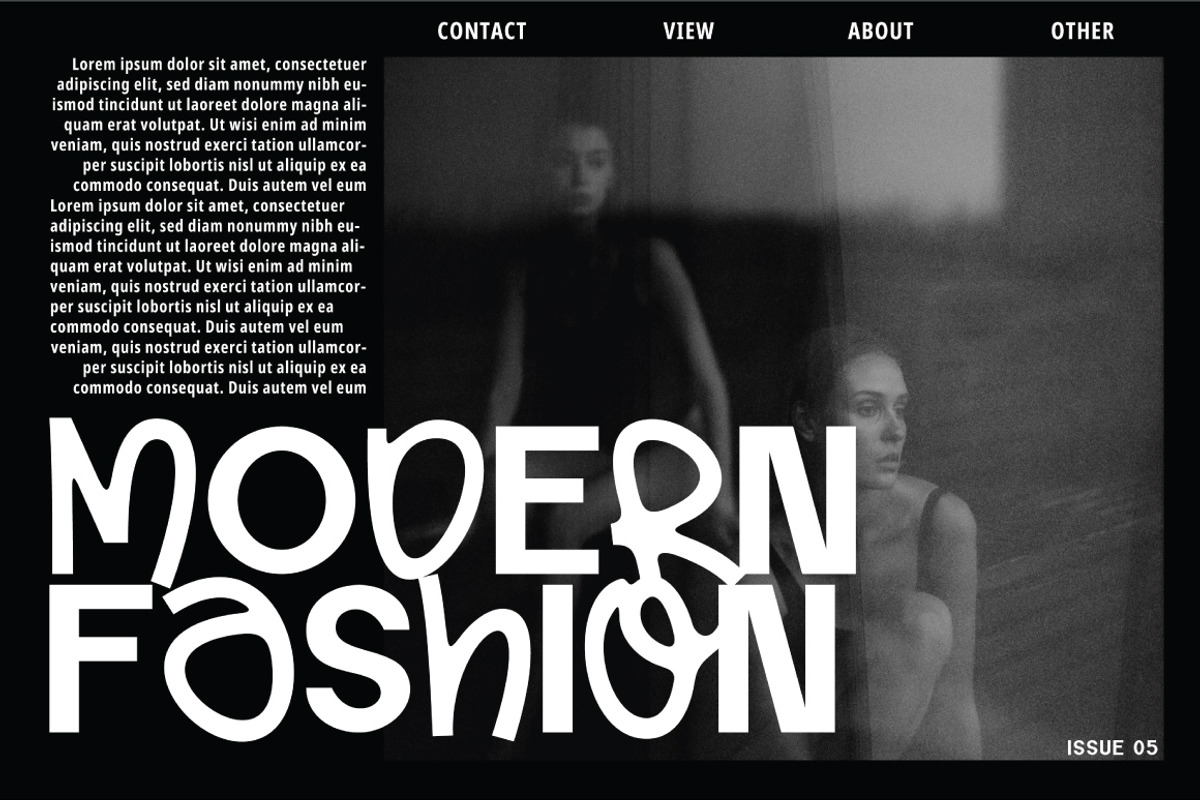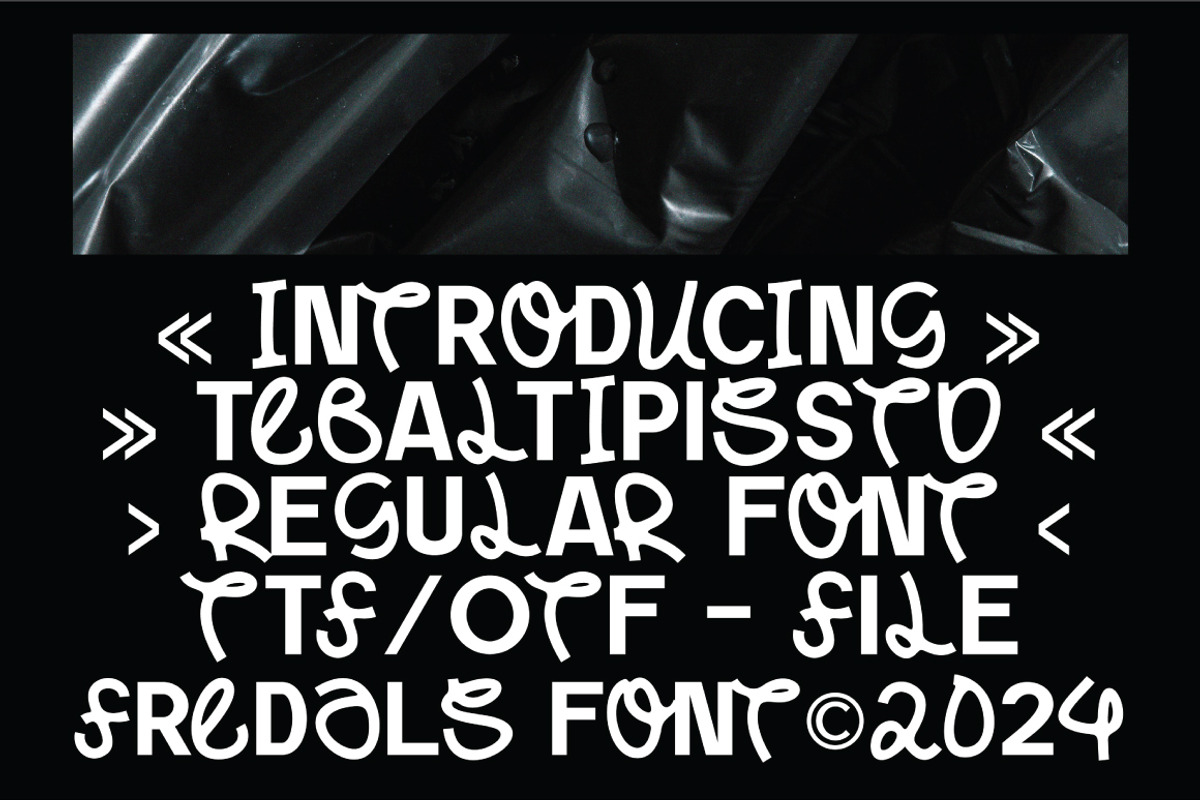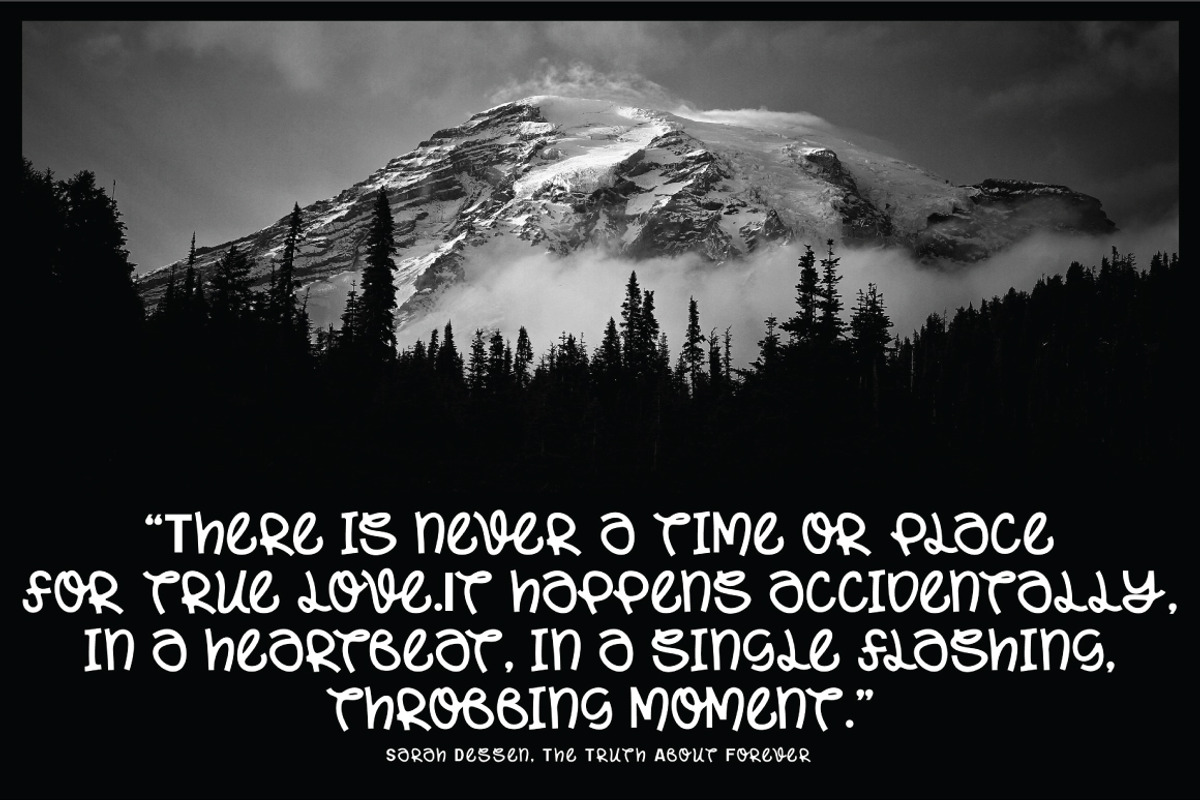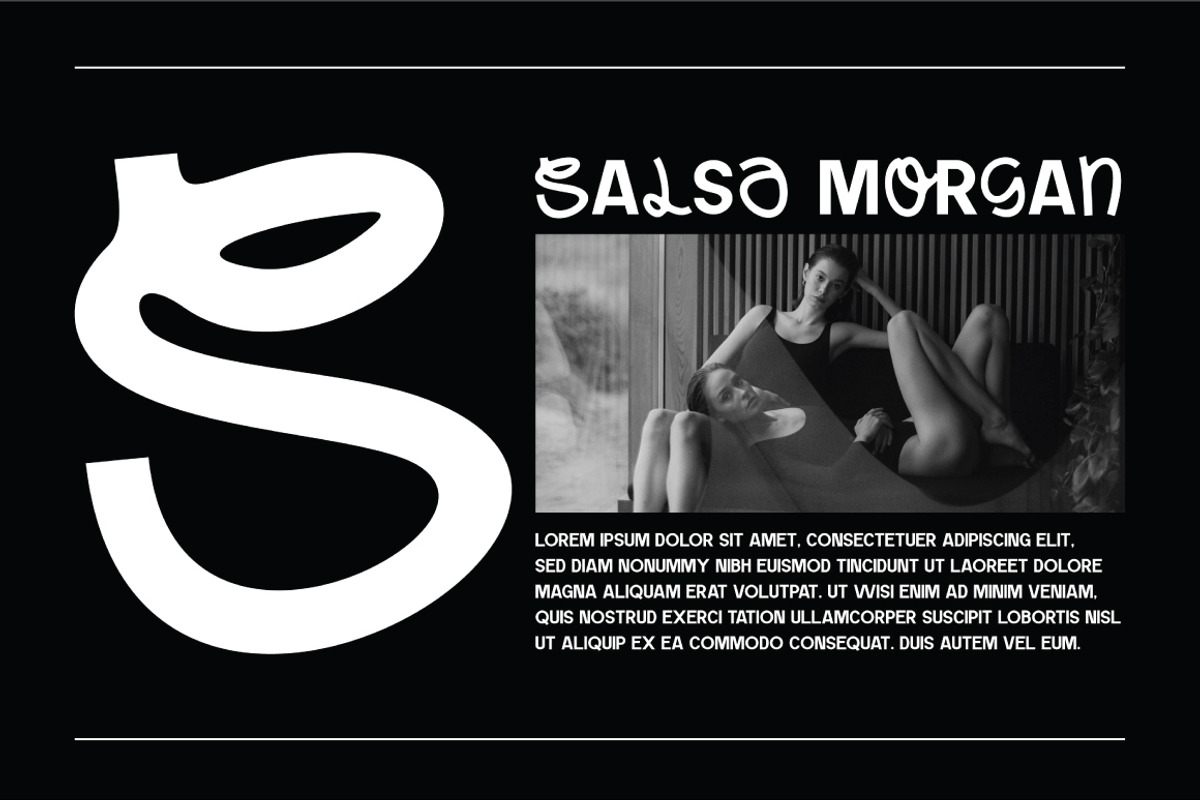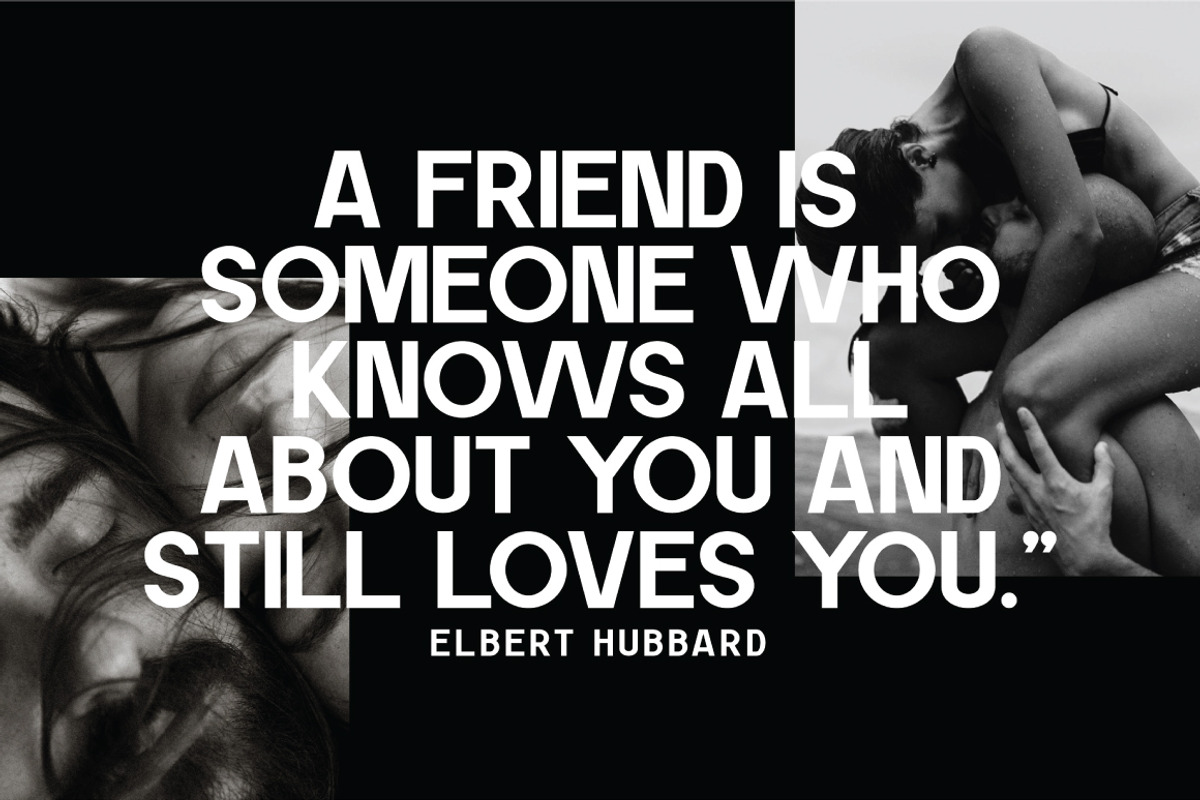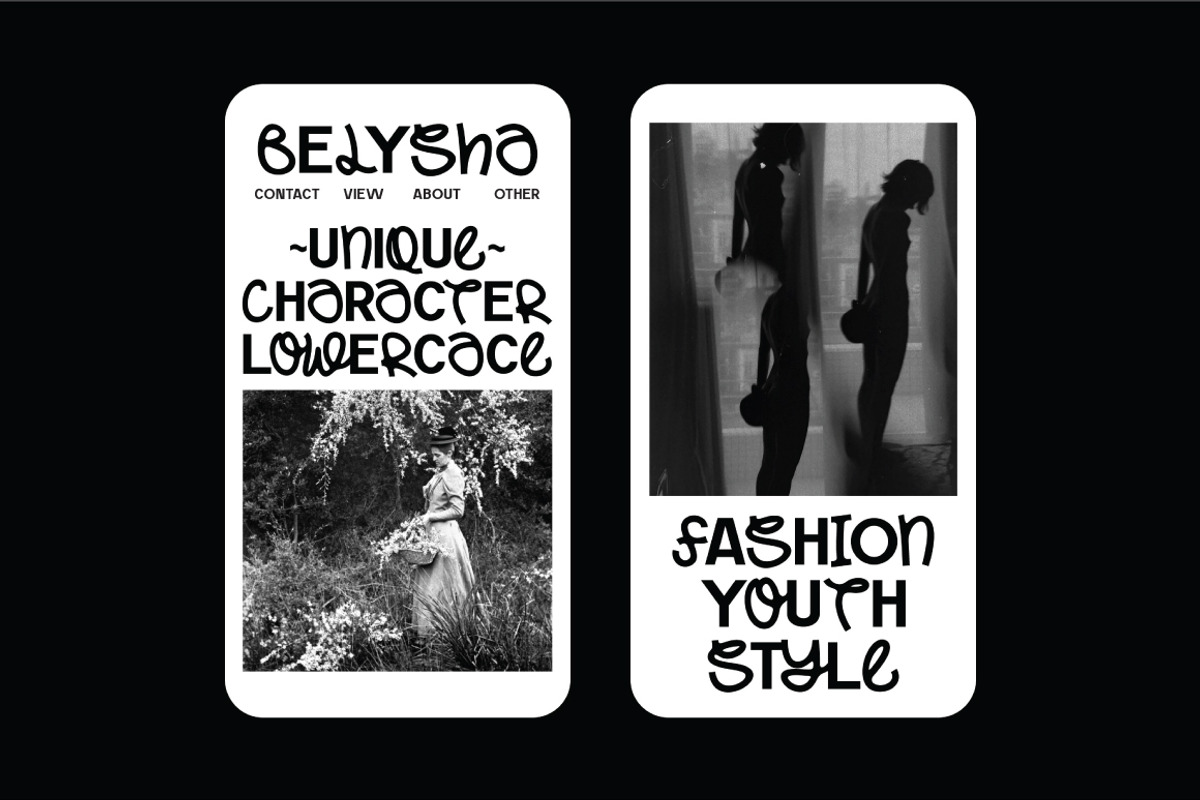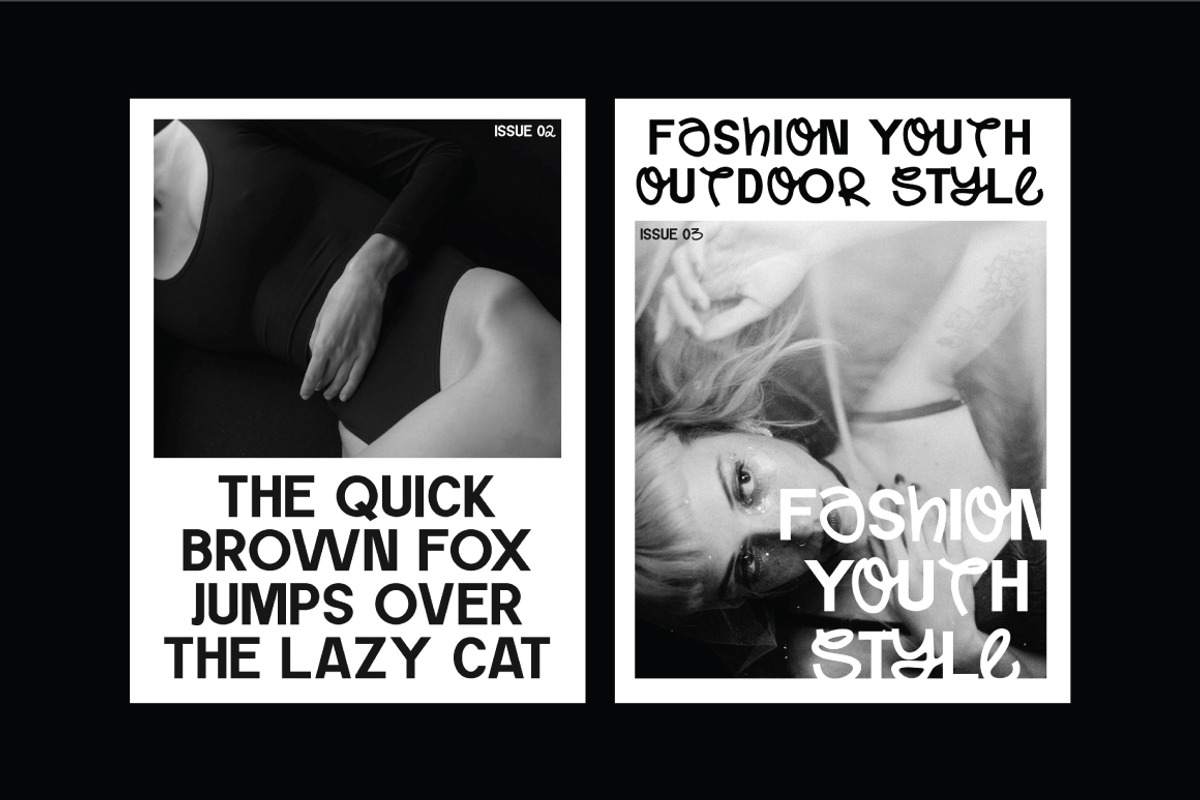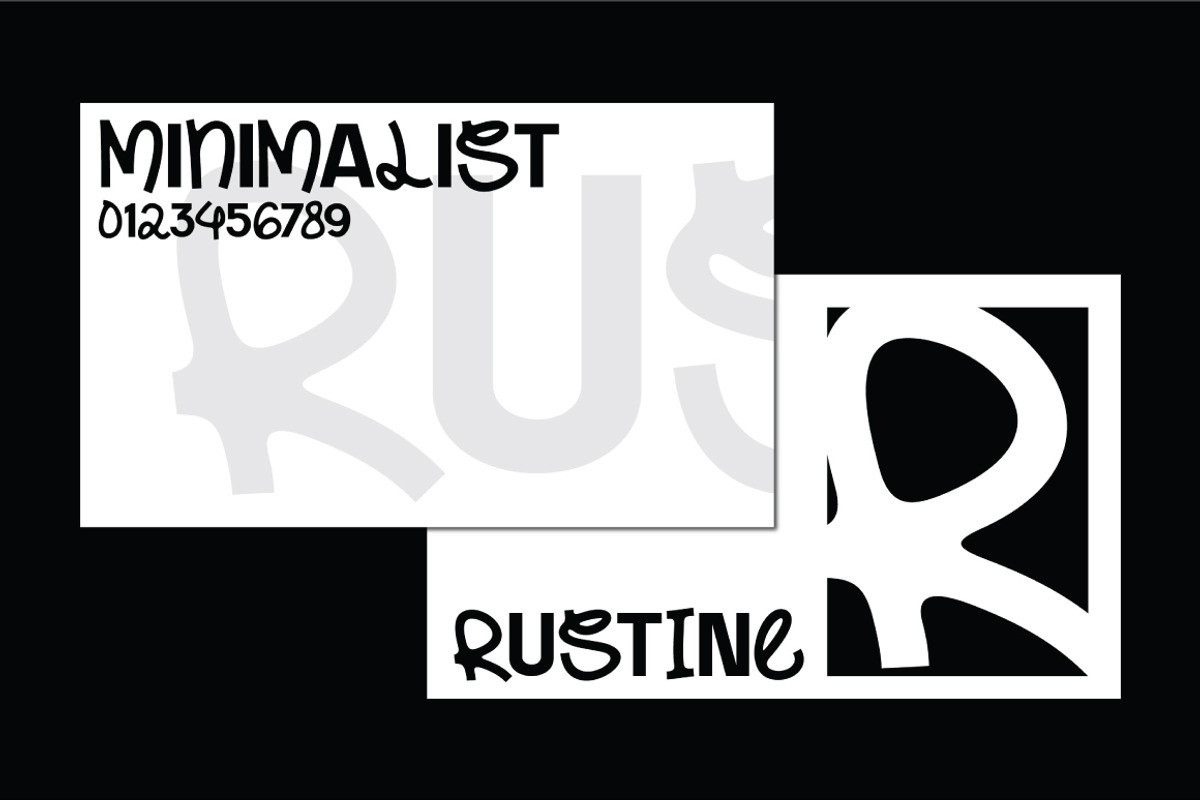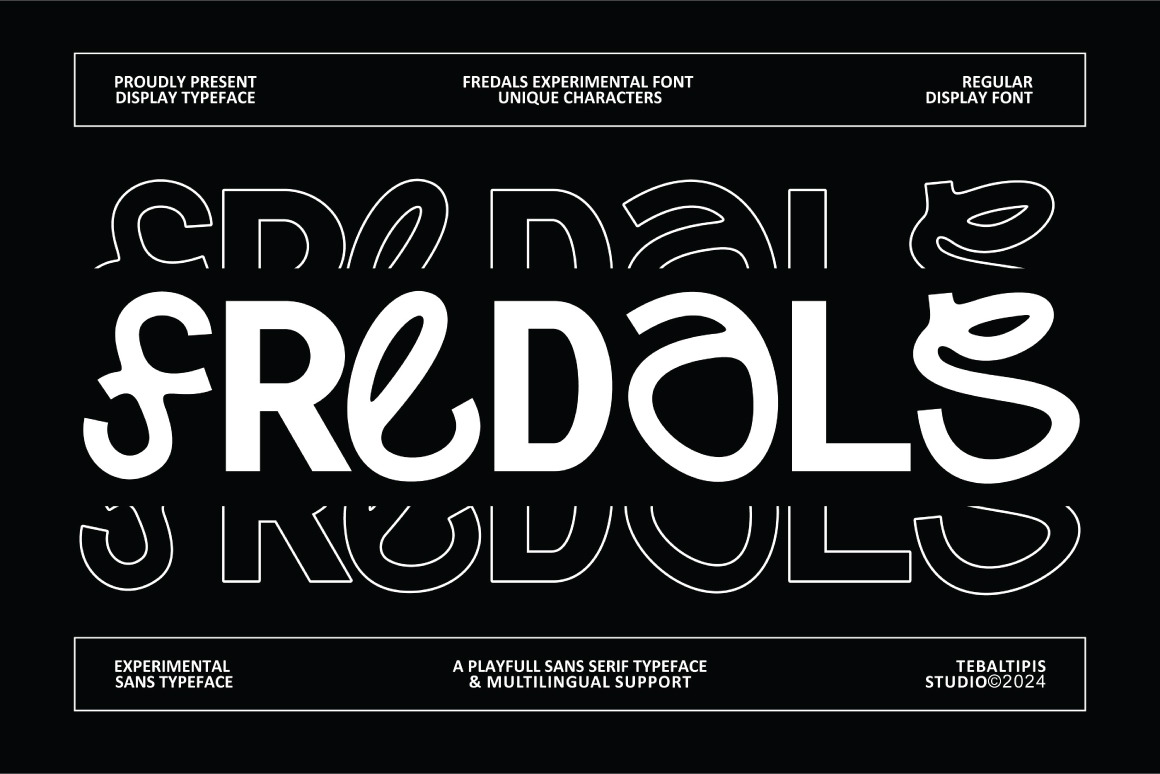
Fredals - Experimental Font
Introducing Fredals Experimental Font! – Casual sans that is the perfect combination of strength & play.
Fredals is an experimental and unique font with stylish curves and a modern visual design. Fredals is here to make your projects more stunning and eye-catching.
Fredals is the perfect choice for any creative endeavor! Whether it’s logos, advertisements, watermarks on photos, stationery, branding projects, magazine layouts, invitations, corporate branding, product designs, labels, business projects, or any other project that needs an elegant touch, Fredals has got you covered.